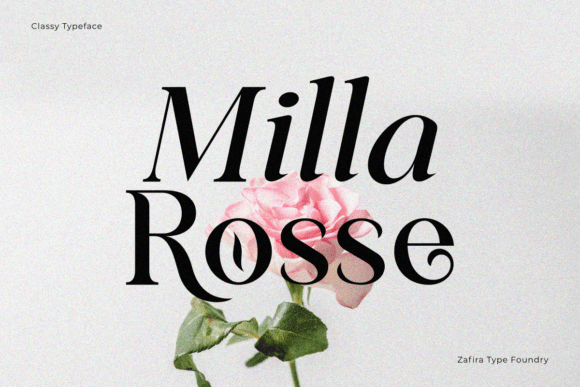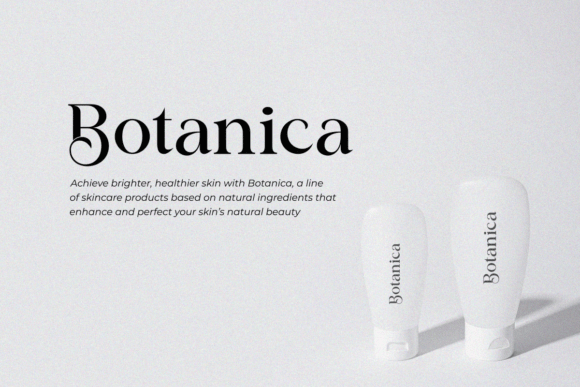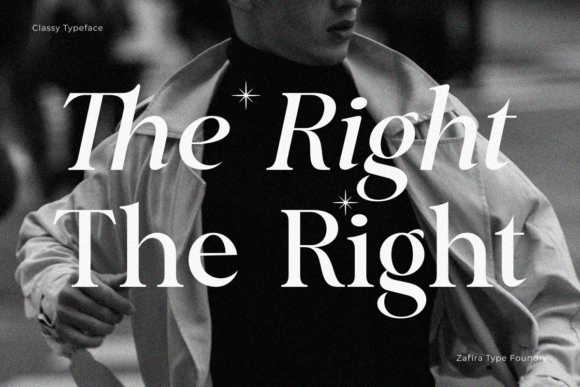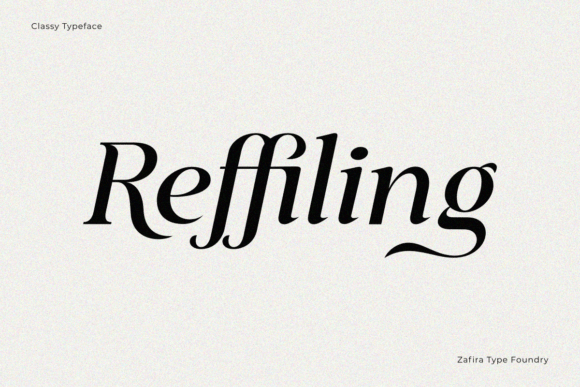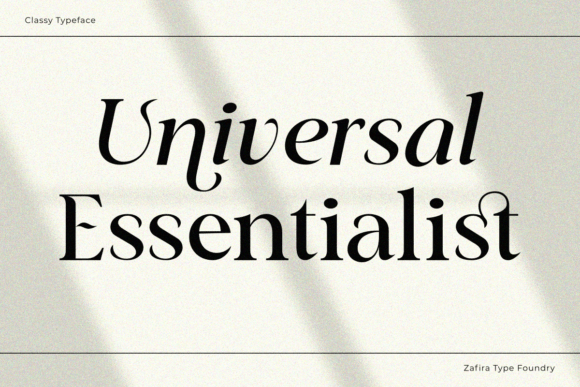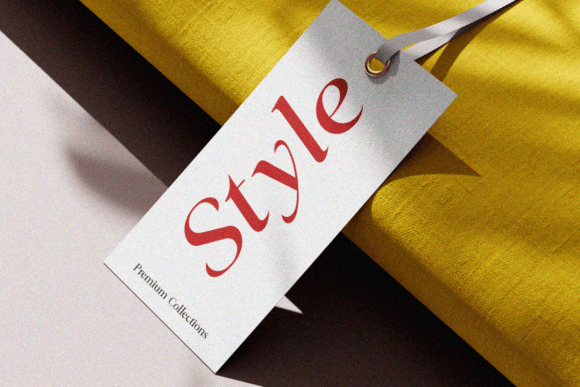
Introducing Classical Premiera Font: Elevate Your Design with Timeless Sophistication
In the realm of typography, few fonts manage to strike a balance between tradition and creativity as effortlessly as Classical Premiera. This sophisticated serif font is designed to bring an air of elegance and refinement to any design project, making it an ideal choice for designers and crafters seeking a formal yet stylish font. With its two distinguished styles, Regular and Italic, Classical Premiera offers a versatile solution for a wide range of applications.
The Regular Style: A Paragon of Balance and Elegance
The Regular style of Classical Premiera is a masterclass in typographic design. Its bold and perfectly balanced letterforms illuminate the page, creating a sense of harmony and stability. This makes it particularly well-suited for crafting lengthy, formal text with gravitas, such as in books, academic papers, and official documents. The font’s classic serif design ensures that it remains highly legible, even in smaller sizes, making it a practical choice for body text.
One of the standout features of the Regular style is its ability to convey a sense of tradition and authority. The font’s elegant letterforms and precise kerning create a sense of cohesion and flow, drawing the reader’s eye effortlessly through the text. Whether you’re designing a corporate brochure, a luxury brand’s marketing materials, or a formal invitation, the Regular style of Classical Premiera is sure to make a lasting impression.
The Italic Style: Adding an Artistic Touch
While the Regular style of Classical Premiera excels at conveying tradition and authority, the Italic style offers a more energetic and artistic flair. This style is designed to infuse your script with a sense of dynamism and creativity, making it ideally suited for accentuating quotes, highlighting text, or creating eye-catching headings.
The Italic style of Classical Premiera is characterized by its fluid, cursive letterforms, which add a touch of elegance and sophistication to any design. The font’s italicized design creates a sense of movement and energy, drawing the reader’s eye through the text with ease. This makes it an excellent choice for designers looking to add a touch of creativity and flair to their work.
Why Choose Classical Premiera?
So why should designers and crafters choose Classical Premiera over other serif fonts? Here are just a few compelling reasons:
- Timeless sophistication: Classical Premiera’s elegant design ensures that it will remain a timeless choice for years to come, never going out of style.
- Versatility: With its two distinguished styles, Regular and Italic, Classical Premiera offers a versatile solution for a wide range of applications.
- Legibility: The font’s classic serif design and precise kerning ensure that it remains highly legible, even in smaller sizes.
- Elegance: Classical Premiera’s elegant letterforms and sophisticated design make it an ideal choice for designers seeking a formal yet stylish font.
Using Classical Premiera in Your Design Projects
Classical Premiera is an incredibly versatile font that can be used in a wide range of design projects. Here are just a few ideas to get you started:
- Print materials: Use Classical Premiera for brochures, flyers, posters, and other print materials where a formal, elegant font is required.
- Digital designs: The font is also well-suited for digital designs, such as website headers, social media graphics, and email marketing campaigns.
- Branding and packaging: Classical Premiera’s sophisticated design makes it an excellent choice for luxury brands and high-end products.
In conclusion, Classical Premiera is a sophisticated serif font that offers a timeless and elegant solution for designers and crafters seeking a formal yet stylish font. With its two distinguished styles, Regular and Italic, this font provides a versatile solution for a wide range of applications. Whether you’re designing print materials, digital designs, or branding and packaging, Classical Premiera is sure to elevate your work with its classic sophistication and artistic flair.